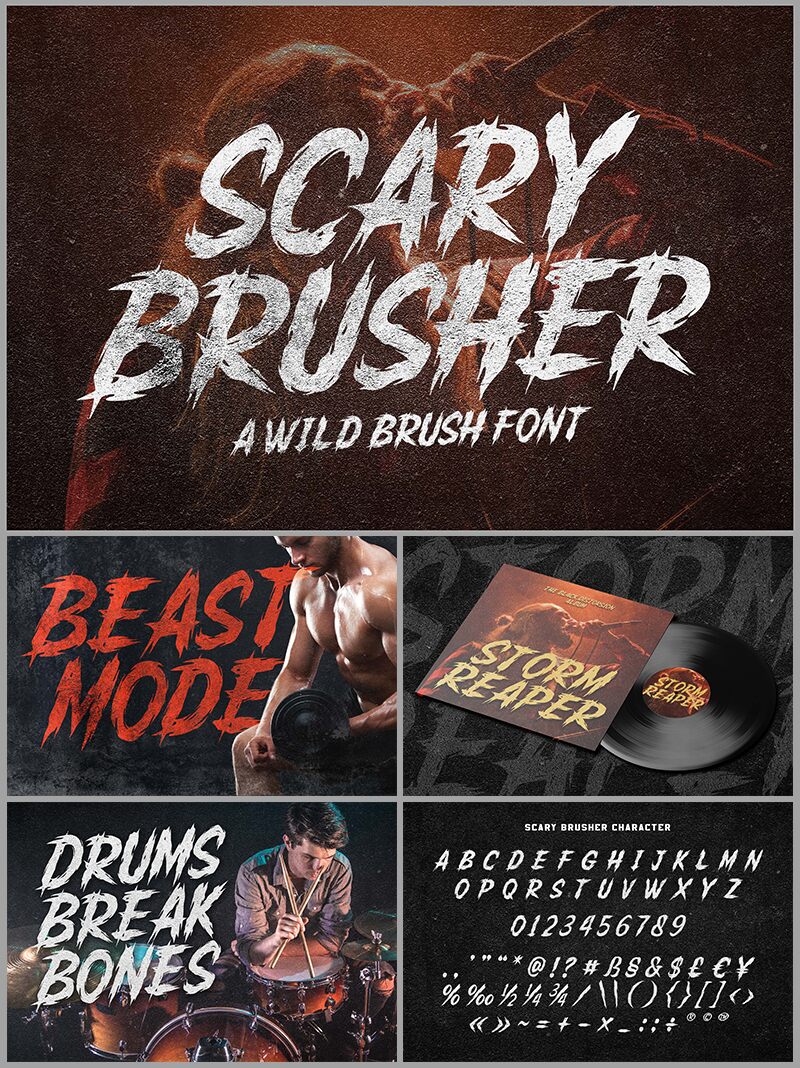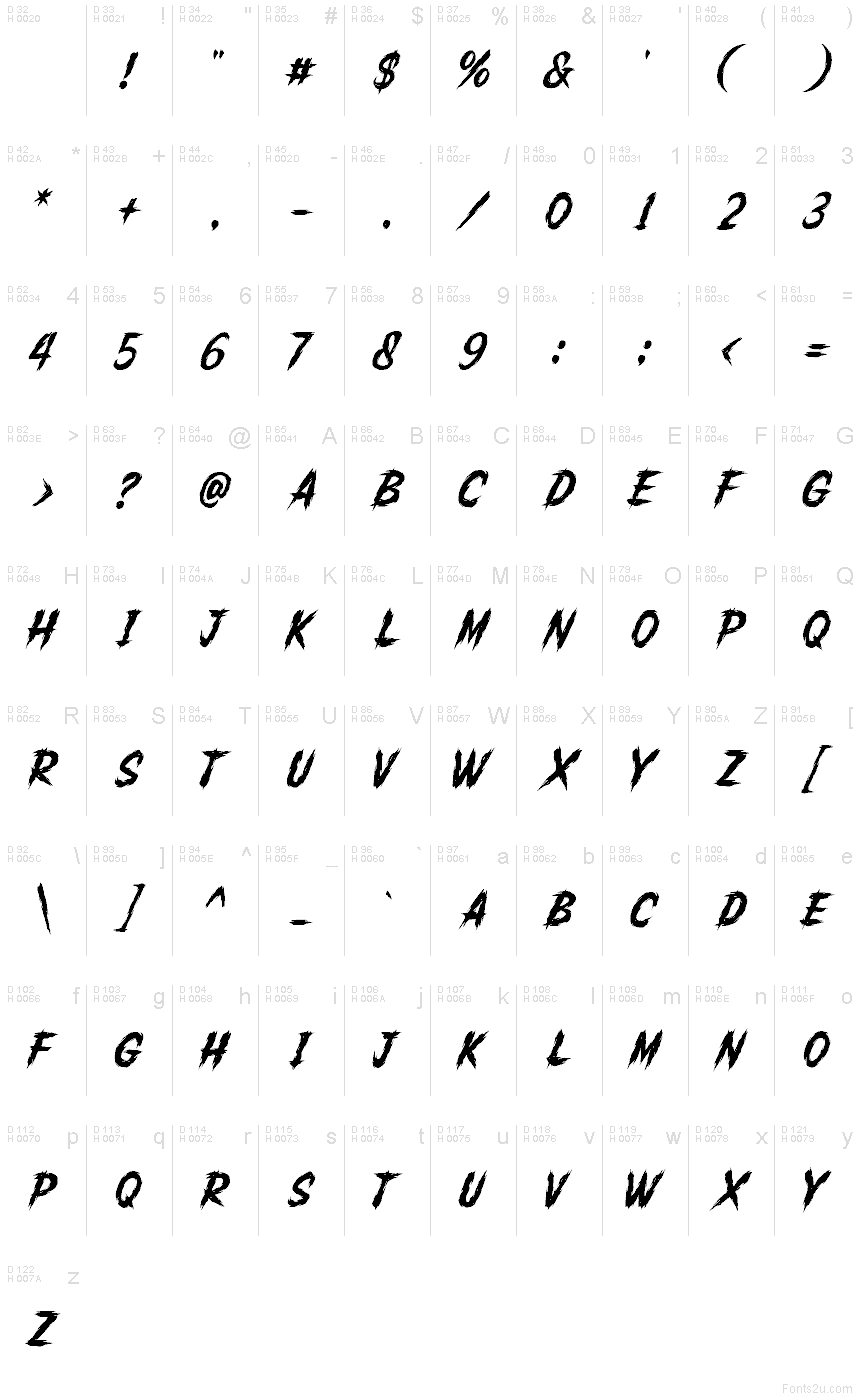
Scary Brusher font by Blankids is a free scary display font built for high-impact chills. Jagged brush strokes slash across each letter, with torn edges and ink spikes that feel ripped from a scratched metal door. The steep slant adds speed and panic, while the dense, inky texture holds together from a distance-great when you need instant dread without losing legibility.
This free font shines on Halloween posters, horror movie titles, haunted house flyers, thriller book covers, metal band merch, escape-room signage, and streaming thumbnails. Using Scary Brusher at large sizes with slightly looser tracking lets the spikes breathe. Pair it with a clean, condensed sans for credits or small copy to keep the chaos controlled.